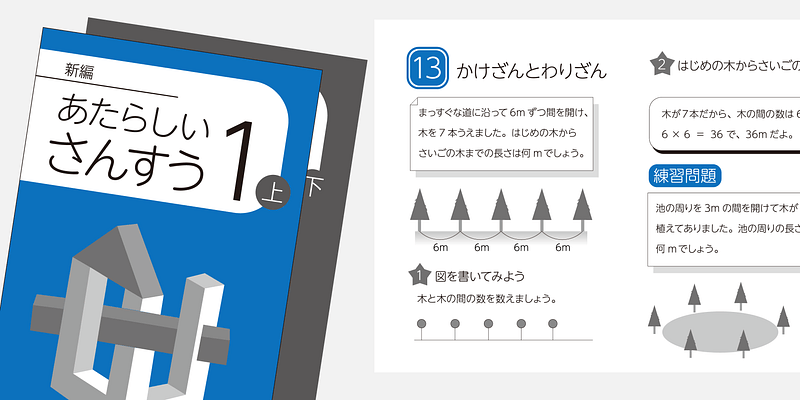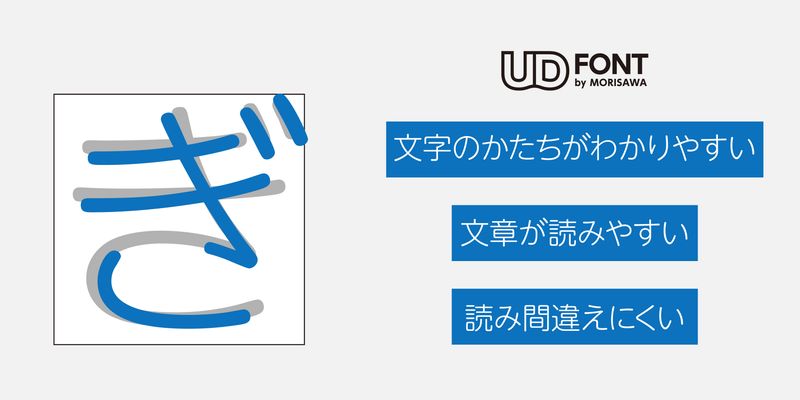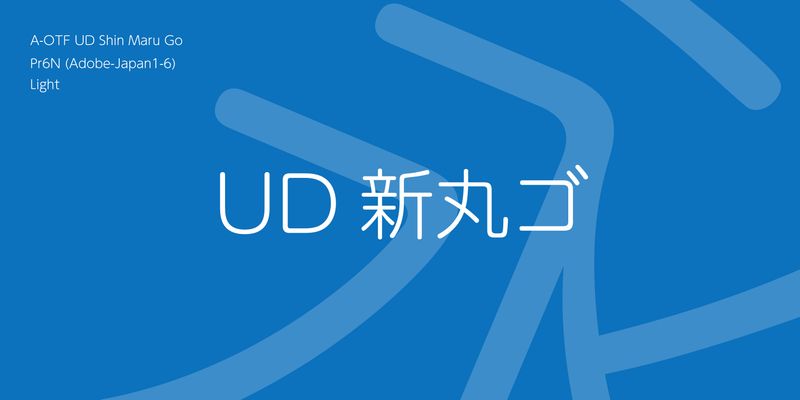
UD Shin Maru Go, a rounded Gothic sans serif  developed under the universal design concept, enables to create a soft and gentle expression on the page. As with UD Shin Go NT, it includes clear and crisp kana and simple and legible Latin alphabet and numerals that go well with UD Shin Go. UD Shin Maru Go is particularly suitable for use in settings where readability and approachability are required.